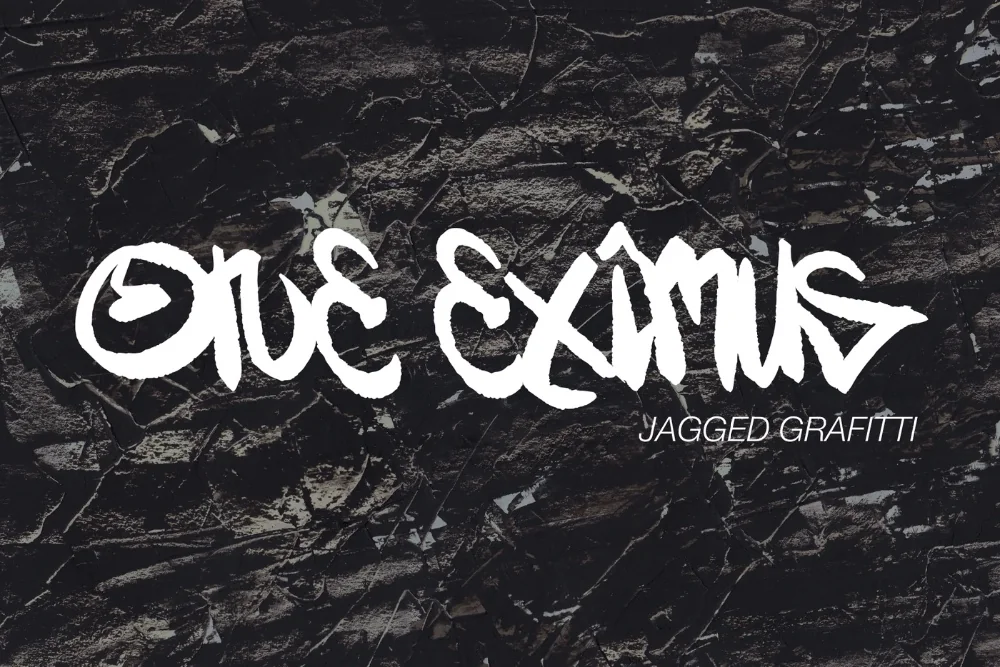
Sharp Marker Graffiti Alphabet
Artwork by One Eximus, the original creator of this set.
If you have been hunting for a marker graffiti alphabet that does not look like every other download on the internet, this one earns its place. Precise marker strokes with hard, deliberate points. Controlled where most tag styles are loose.
The stroke width barely varies and each terminal is cut to a clean point, giving the alphabet a disciplined feel. Letters sit on a steady baseline with consistent spacing.
Good for editorial headlines, portfolio work, technical apparel, and product packaging.